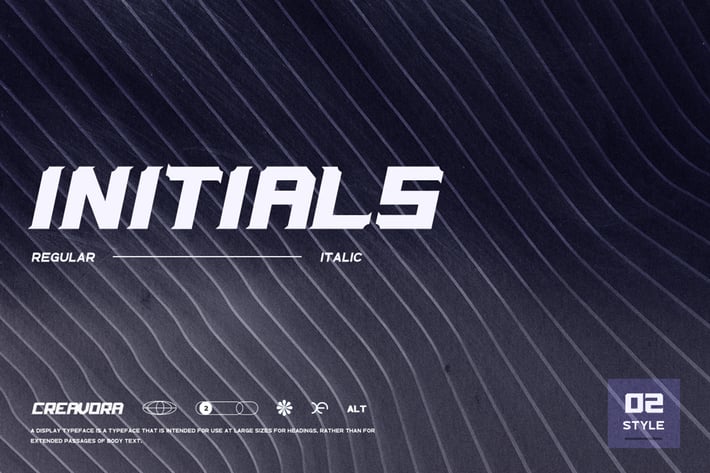
Initial - Modern Cyber Font
Introducing Initial - Modern Cyber Font
Looking for a new large-size font for headings? Consider Initials, a regular italic font that looks tough inside and out. It looks great on the headline, banners, and many more. Grab the free font and take your projects to the next level.